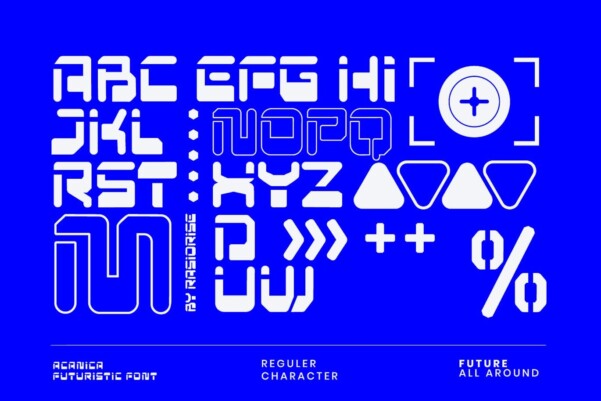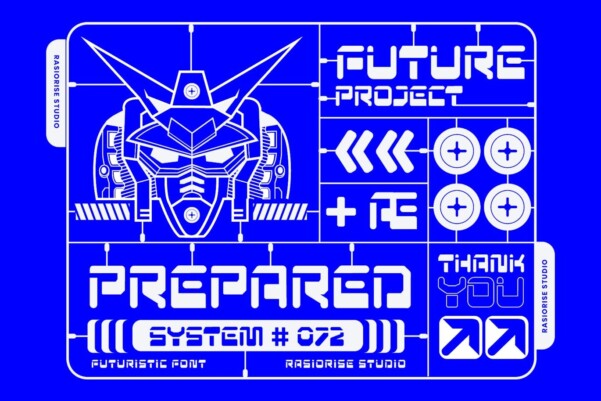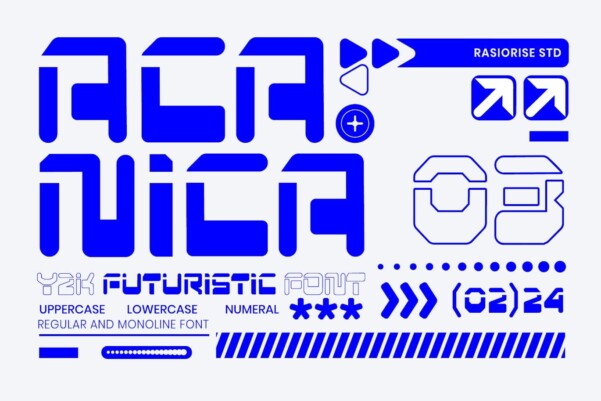
Acanica Font
Designer: rasiorise_studio
Acanica Futuristic Y2K Font Display by Rasiorise Studio. The Acanica font is now available for people looking for a futuristic font for the year 2000. Sci-fi, Cyberpunk, Hyperbeast, and Mecha font styles served as inspiration for this design. Some elements, such as regular and single-line typefaces, were combined to give the font a bolder appearance